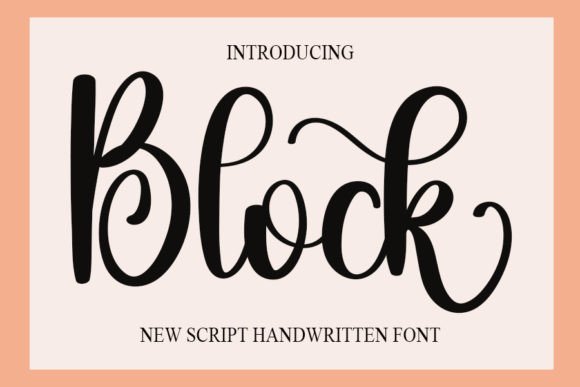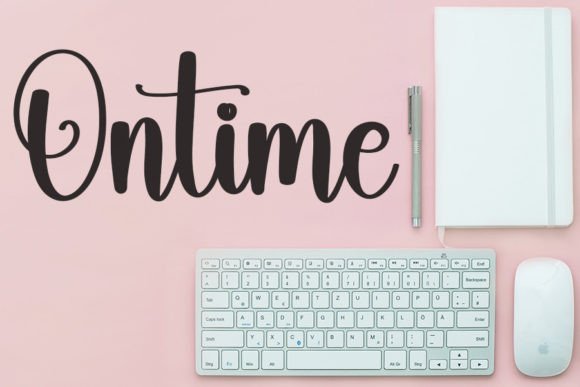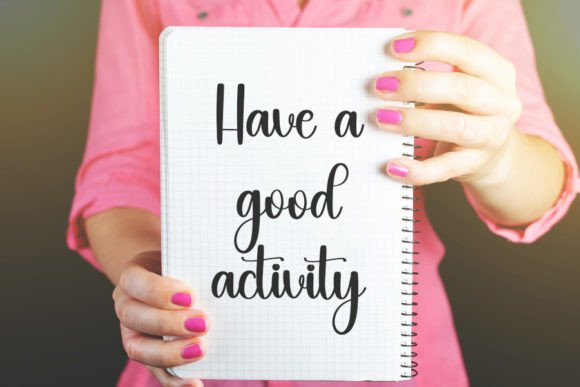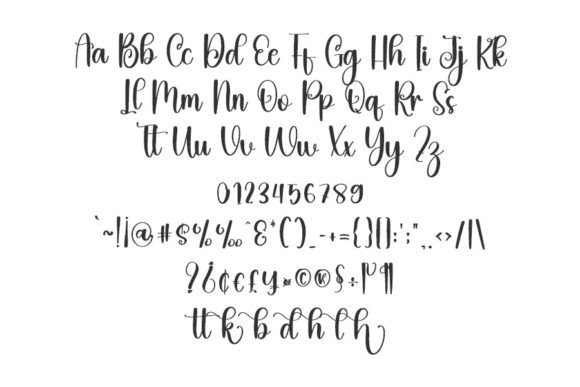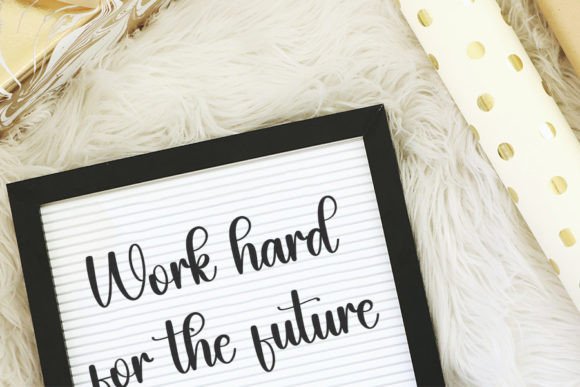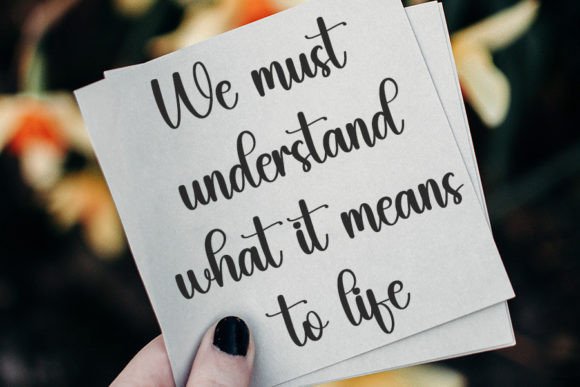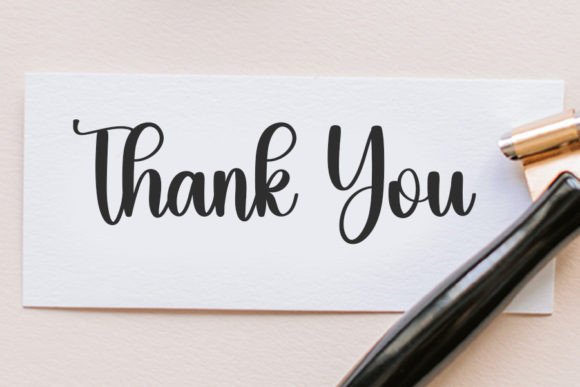
Block Font
About Block Font
Block font is a casual and relaxed script typeface that brings a laid-back yet stylish vibe to your designs. It offers incredible versatility, making it suitable for a wide array of creative projects. Whether you are designing wedding invitations, crafting beautiful stationery, or creating engaging social media posts, Block font provides a fresh and friendly look that enhances your work.
Versatility for Different Projects
This font’s adaptable style allows it to fit seamlessly into numerous design contexts. Use Block font to add a personal touch to wedding invitations, creating an inviting and warm feel for your special day. It also works wonderfully on stationery, lending a handcrafted and elegant vibe. Moreover, Blockfont can make your social media posts stand out with its clean and approachable handwritten style.
Relaxed and Casual Appearance
Blockfont features smooth, flowing characters that feel casual yet polished. The relaxed script style balances charm and professionalism, making it ideal for both informal and formal uses. Its effortless readability and natural flow bring authenticity and warmth to your designs.
Ideal for Creative Expression
Beyond invitations and social media, Blockfont suits branding materials, greeting cards, logos, and more. Its friendly and inviting personality helps your creative projects connect with audiences on a personal level.
Why Choose Block Font?
Choosing Blockfont means selecting a typeface that is flexible, easy to pair with other fonts, and perfect for adding a casual yet elegant touch to your designs. Its balanced style ensures your work feels both polished and approachable.
Enhance Your Designs with Block Font
Make your next project shine by incorporating Blockfont. Whether you’re working on print or digital creations, this font will elevate your designs and captivate viewers with its relaxed elegance and charm.